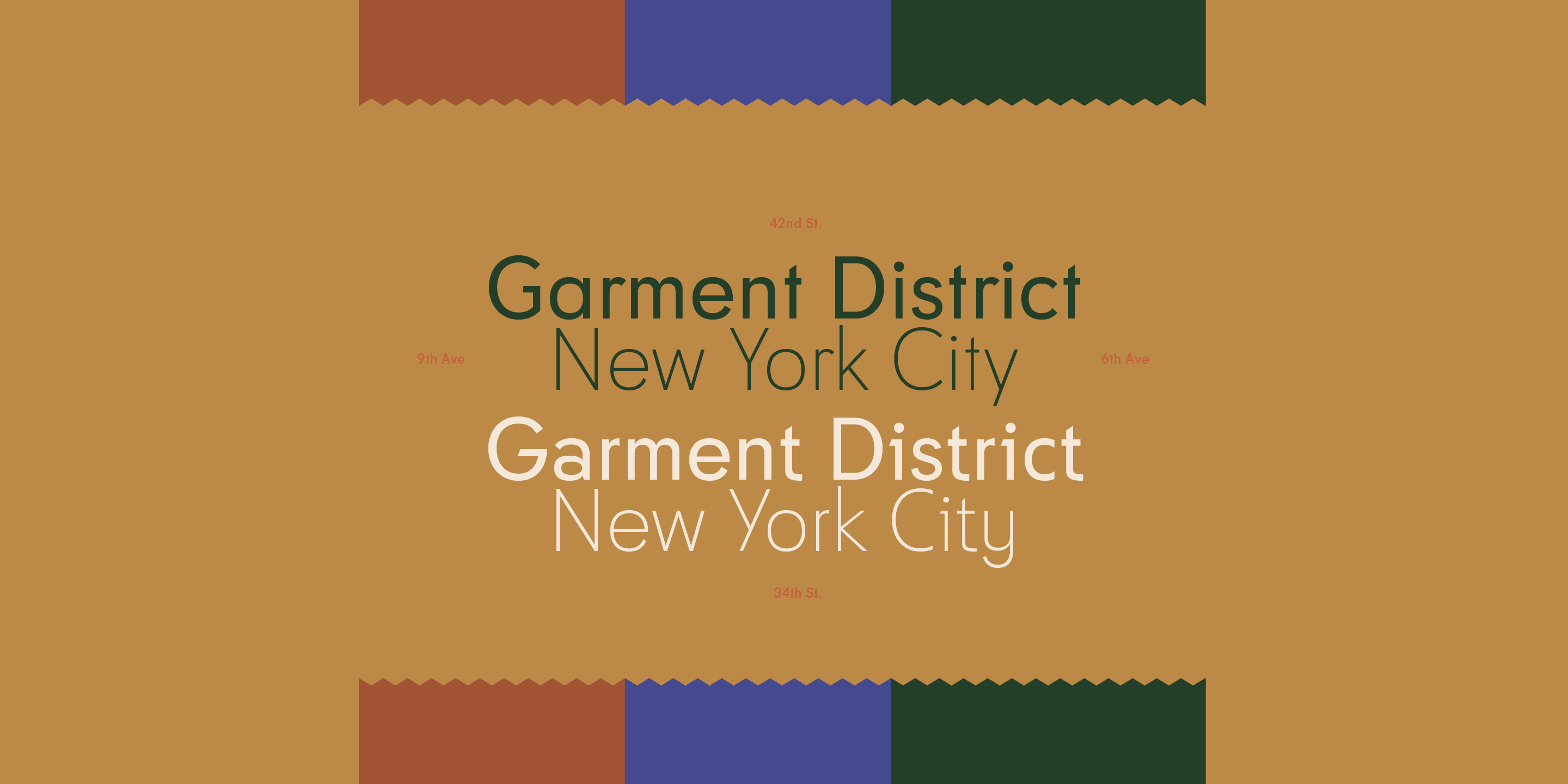
Tafel Sans Font is perfect for clean corporate branding, modern web design, professional presentations, minimal packaging design, contemporary signage, sleek mobile interfaces, sophisticated editorial layouts, streamlined business communications, elegant tech products, and polished marketing materials.
What makes Tafel Sans Font so exciting is its refined geometric precision that embodies the perfect balance of functionality and contemporary elegance. This typeface features clean, sans-serif letterforms with carefully crafted proportions and subtle character that communicates professionalism and modern sophistication. The font's crisp and versatile character delivers exceptional clarity and readability, making it perfect for brands seeking to establish trustworthy professional presence and appeal to audiences who value clean design principles and the timeless appeal of well-executed minimalist typography.
Tafel Sans Font family includes Thin, Light, Regular, Medium, Bold, and Black weights, along with corresponding italic styles that maintain geometric consistency. The family also features special character sets including technical symbols, modern punctuation, and professional typography elements that enhance the font's connection to contemporary design and business communication themes.
The Tafel Sans Font Free Download package offers designers access to premium sans-serif typography that brings professional clarity to any modern project. This versatile typeface combines geometric design principles with contemporary functionality, creating a powerful visual tool for professional brands and business-focused organizations. Whether you're developing corporate identities, designing clean publications, or creating professional marketing materials, this font provides the crisp character needed to communicate competence and modern professionalism.
Tafel Sans Font supports comprehensive character sets including Latin alphabets, numbers, punctuation marks, and special professional symbols. The font's precisely balanced spacing creates optimal legibility while maintaining clean geometric aesthetics across all applications. Its OpenType features include contextual alternates, professional ligatures, and technical typography options that expand creative possibilities for business design projects.
Professional designers choose Tafel Sans Font for projects requiring authentic modern appeal and clean professional aesthetics. The font excels in applications where clarity and contemporary sophistication are essential, offering the perfect solution for brands seeking to communicate reliability, innovation, and professional excellence. Its sans-serif character makes it ideal for technology companies, professional services, and modern corporate organizations.
The Tafel Sans Font Free Download provides creative professionals with an exceptional opportunity to explore contemporary sans-serif typography. With its clean character variations, professional design elements, and modern quality, this font represents outstanding value for designers, business organizations, and creative agencies specializing in professional visual communications that celebrate clarity, functionality, and the enduring appeal of well-crafted geometric typography and contemporary design excellence.